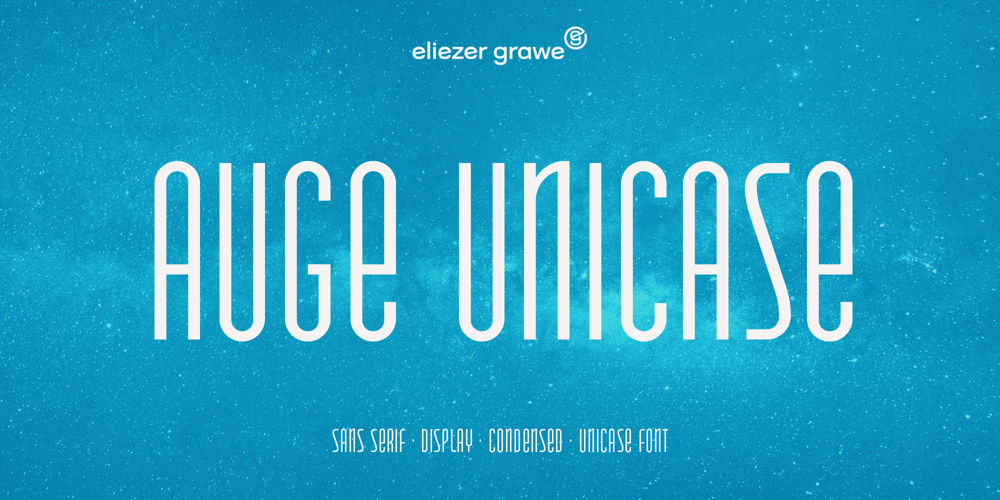
Auge Unicase
Auge Unicase font
Auge Unicase Font Family was designed by Eliezer Grawe and published by Eliezer Grawe. Auge Unicase contains 2 styles and family package options. Auge Unicase is a sans serif display font, extra-condensed, with a unicase style. It is a geometric and very modular font that has a “modern-vintage” feeling. It is good for titles and short texts.Auge Unicase has a set of alternates, accessible by contextual alternates and stylistic set.It was designed following the Underware Latin Plus character set, supporting 219 Latin based languages (see https://underware.nl/latin_plus/languages/).Version 1.1 now has Cyrillic support and 757 glyphs.